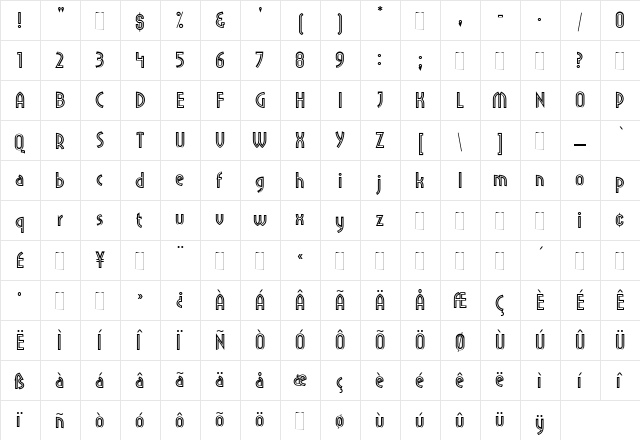
Pritchard Line Out Regular
Pritchard Line Out is a composed and adaptable typeface that performs quietly and consistently across a wide range of design contexts.